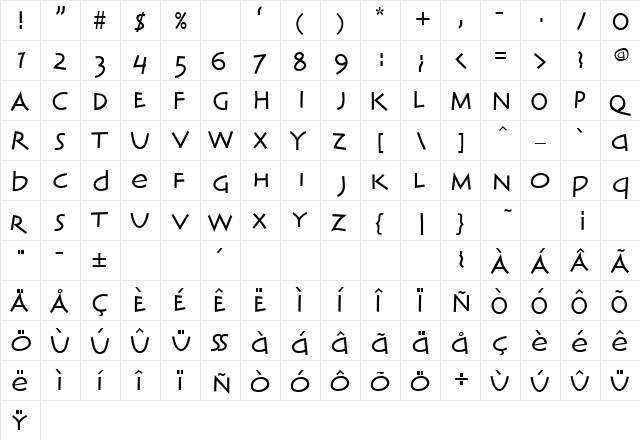
AIClassicIngenus Regular
| Foundry | Alphabets, Inc |
Design Context for AIClassicIngenus Typeface
AIClassicIngenus has the warm character of retro typography — evoking diners, record sleeves, and the golden age of print advertising.